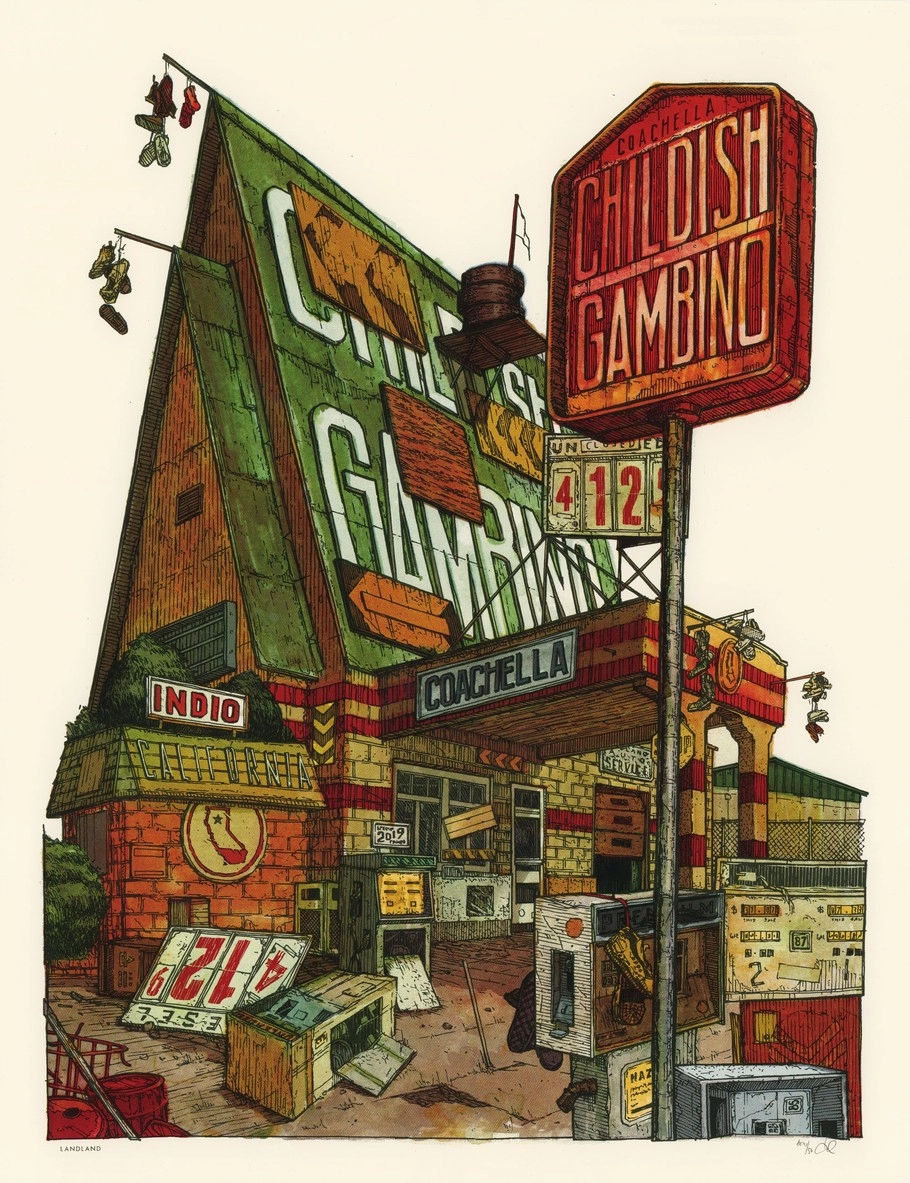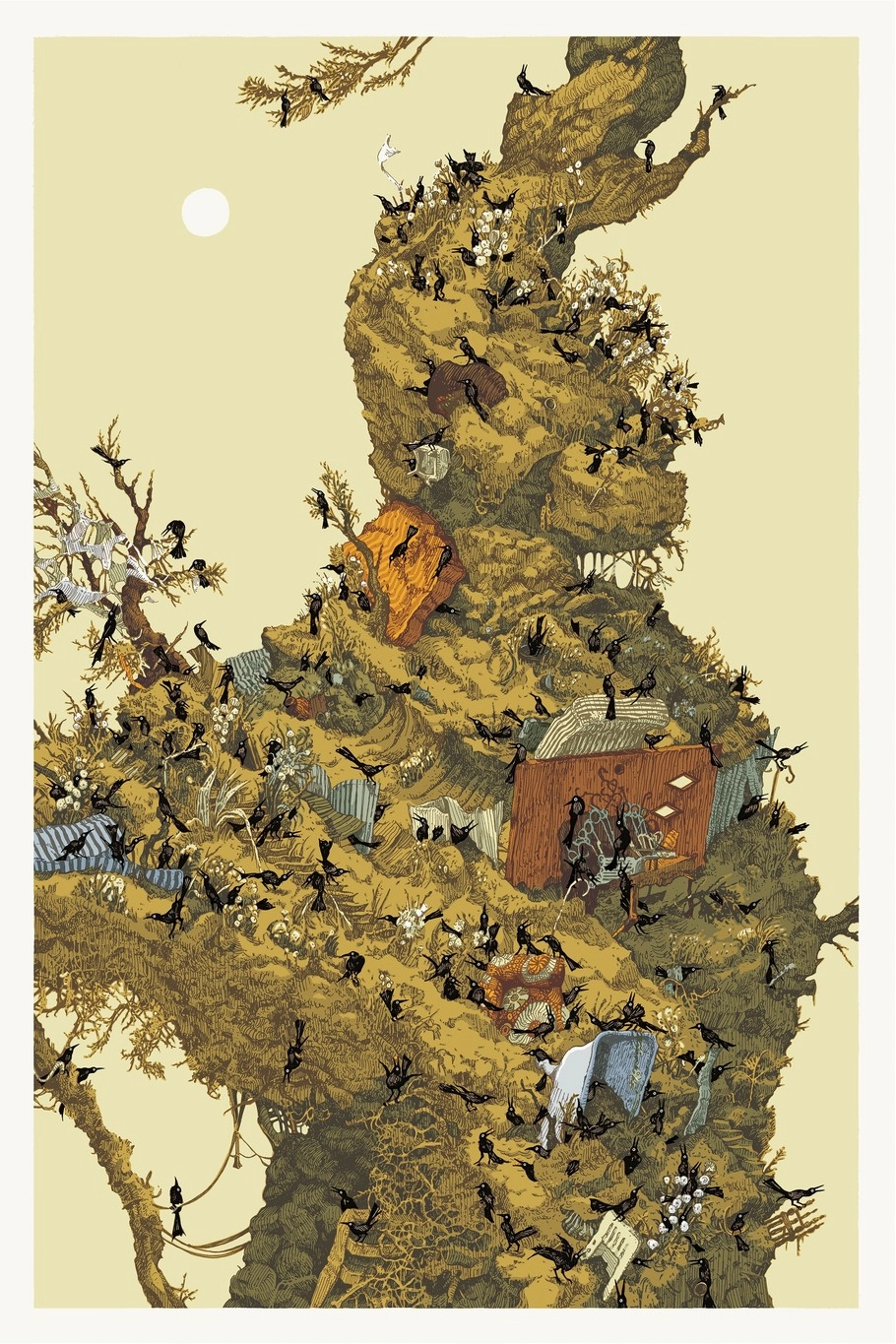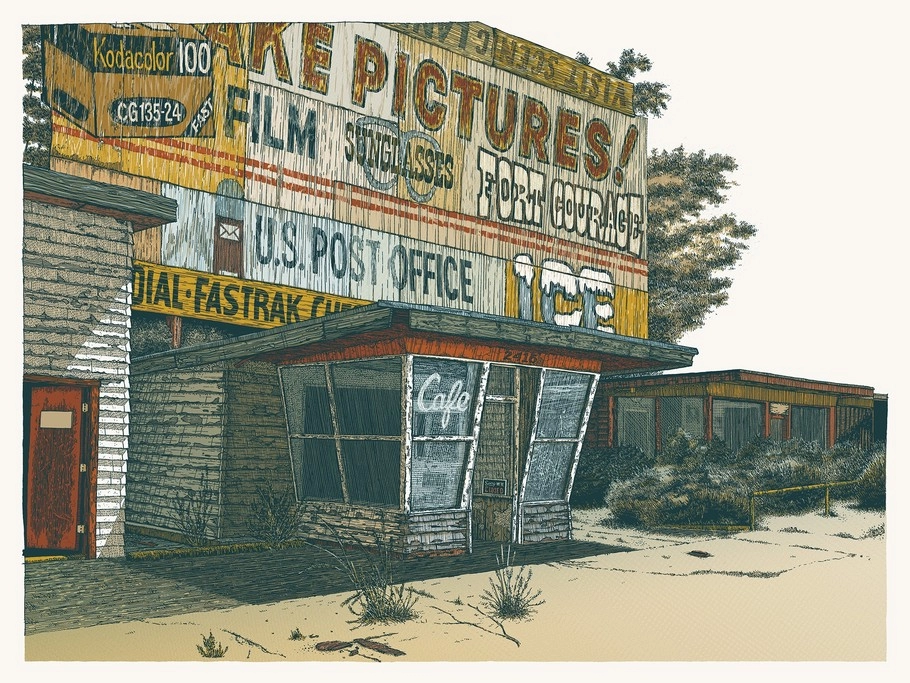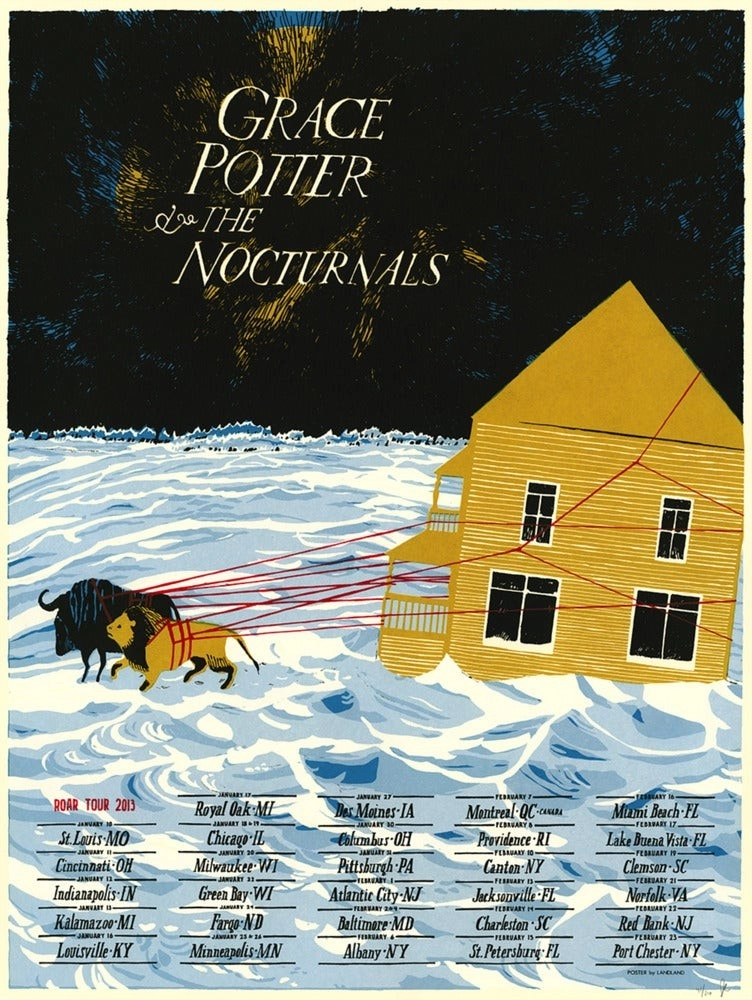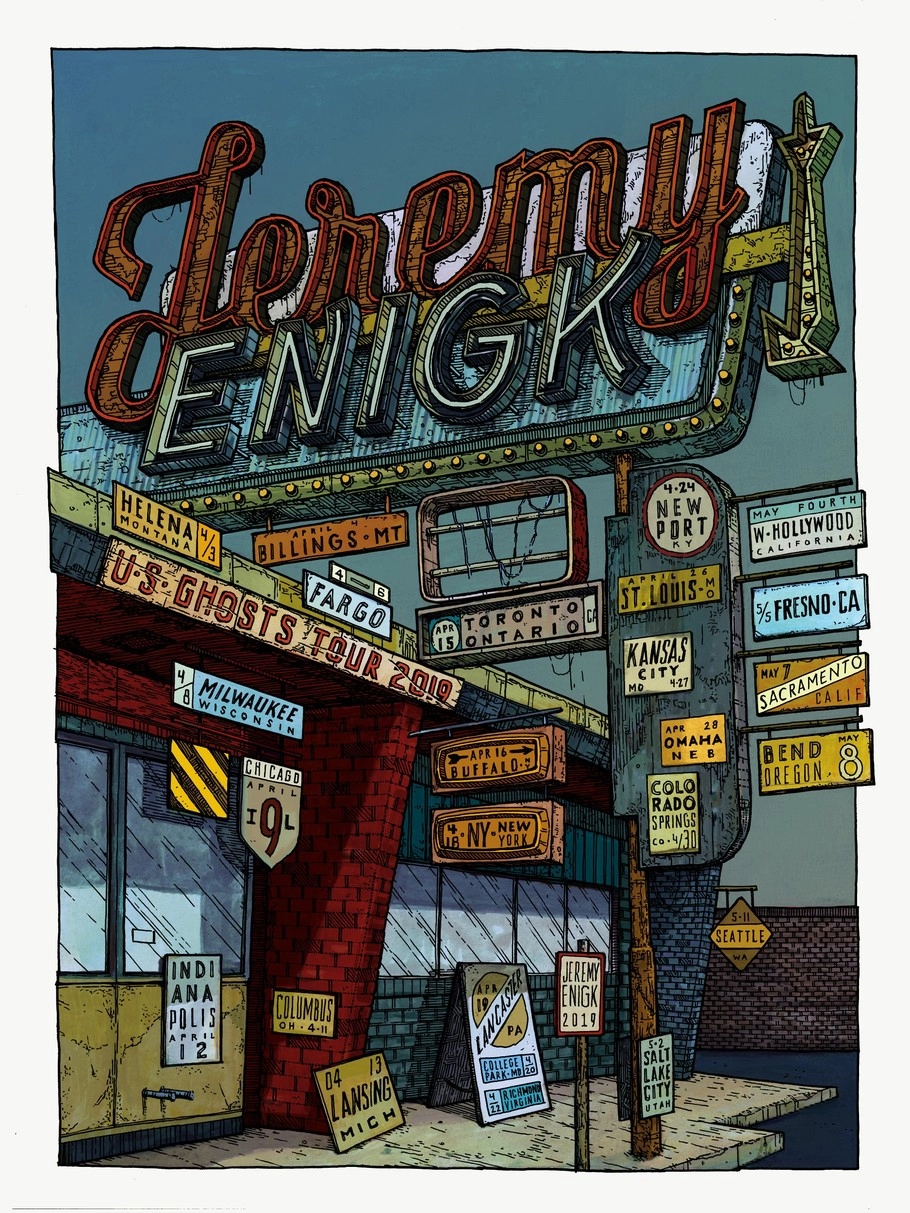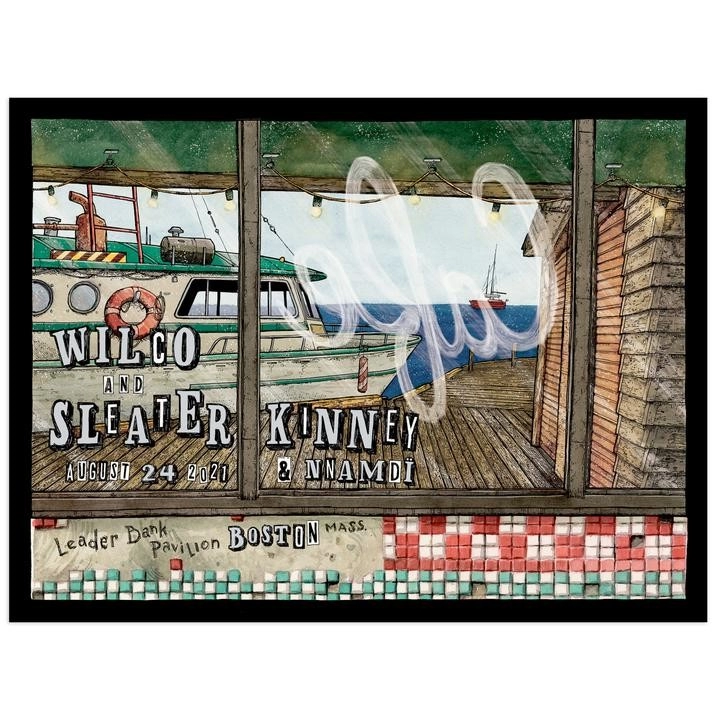
Creative Characters Ep. 14: Landland.
“ Screen printing just beats problem-solving into you. But [we've] been doing this long enough that all the lower-level problems are pretty diagnosable. Now we're just onto the bigger scale ones. ”
Dan Black, Landland.
This week, Creative Characters travels far into the upper Midwest to talk with Jes Seamans (IG: _jseamans) and Dan Black, who together comprise the small but mighty print and design studio Landland (IG: @landlandcolportage). In addition to her work with Landland, Jes is also a member of the THE VACVVM (IG: thevacvvm), an artist’s group co-founded by Aaron Horkey and Mitch Putnam.
Landland primarily designs and prints posters for bands and musicians—in addition to art prints—with a range of clients including smaller indie acts like American Football, Jeremy Enigk, and Amos Lee alongside global names like Childish Gambino and Foo Fighters. But even as their business has grown and attracted those bigger names, Jes and Dan remain very connected, both in mindset and practice, to their DIY roots.
“When I moved to Minnesota in fourth, fifth grade or so, I had a cousin who was a bit older and he was into bands,” Dan says. “So I went straight from zero music to receiving constant invitations, as a small child, to [for example] some closed-down department store where punk bands are going to play. It was incredibly addictive to see a community in a small town make a thing that was fun and very, very cool. It completely did a number on me cause now my mindset is that anything I can imagine happening, there’s a route for it.”
Jes found her way to art through music as well. “I was in a band that played a lot of shows and toured and I thought, I also love to draw so why not? So that’s how these two things came together and how I started making posters. It was a way I could combine the two things I was doing, and I saw it as a way that I could contribute to the band because I couldn’t drive a car then so I couldn’t drive on any of our tours!”
You know a Landland print when you see it—the combination of linework, color, and especially lettering is truly unique and lends incredible depth and detail to the work. For the lettering, in particular, Dan draws inspiration from roadside gas stations, neon signage, and other “junk fortresses” he encounters on road trips throughout the country. A lot of Landland’s aesthetic centers around those forgotten corners of society, the abandoned gas stations, rest stops, and other relics of lived lives
All of this comes together in a screenprinting process that has evolved over time to combine Jes’ delicate watercolors and Dan’s intricate linework. “Screen printing it, it just beats problem-solving into you,” Black says, deftly summarizing his and Jes’ years of test prints, “flukes,” and other assorted humbling experiences. “There’s always something that like makes you feel like you suck at it really bad. But [we’ve] been doing this long enough that all the lower-level problems are pretty diagnosable. Now we’re just onto the bigger scale ones.”